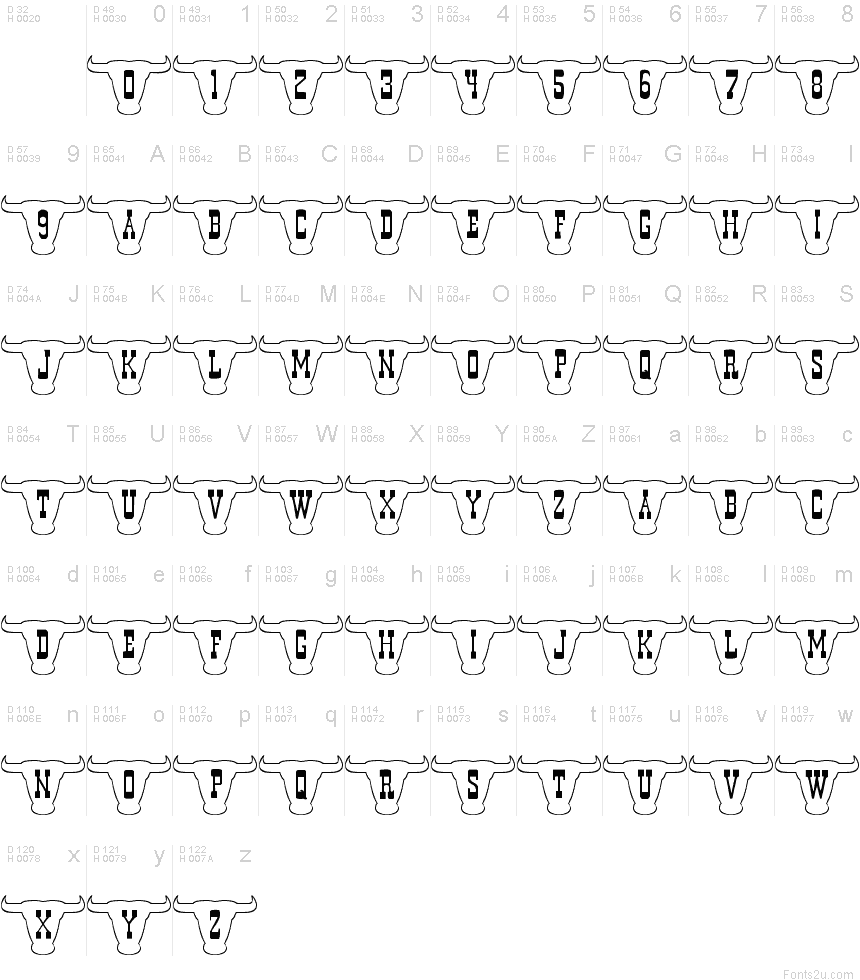
101! Texan Style by Nght is a free western animal dingbat font built around outlined longhorn heads. The recurring silhouette has broad horns and a spare hand-drawn contour, with block marks inside each head like ranch brands.
It is especially suited to rodeo posters, where the longhorn emblem gives an immediate Texas reference. Western-themed restaurant packaging and ranch merchandise can use the same branded-cattle motif as part of a logo or label. The symbols also fit country music graphics and cowboy event programs rooted in frontier imagery.